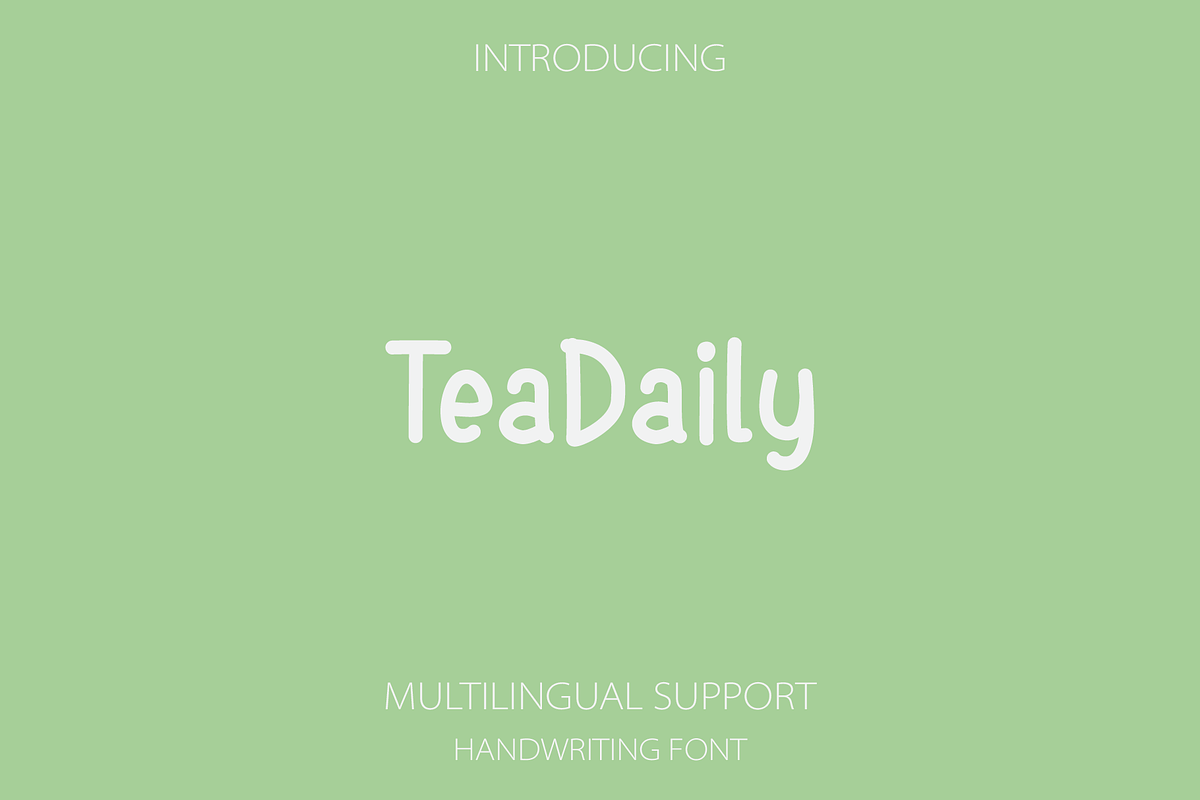
TeaDaily a Handwriting Font Free Download
TeaDaily – A Handwriting Font Free Download
TeaDaily – A Handwriting Font Free Download is a soft, cozy typeface that captures the ease and charm of everyday handwriting. With its smooth, casual strokes and warm personality, this font is perfect for planners, journal entries, blog graphics, DIY crafts, greeting cards, and social media content that calls for a personal and approachable touch.
TeaDaily feels like a handwritten note from a friend—genuine, friendly, and effortlessly stylish. Its clean yet expressive look ensures readability while adding character to both print and digital designs.